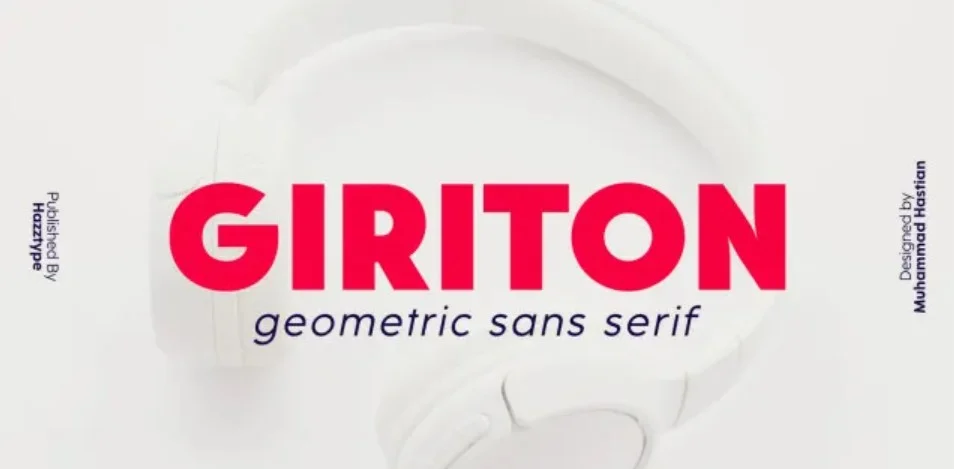
Giriton Font is a modern geometric sans serif typeface designed to bring a sleek and contemporary feel to any project. Its clean lines and balanced shapes give it a refined look that works beautifully in both digital and print designs.
The font’s minimal yet confident style ensures clarity, making it a great choice for projects where both readability and visual appeal are important.
The geometric structure of Giriton offers a timeless quality, making it a reliable option for long-term branding.
Whether you are creating logos, designing editorial layouts, building a stylish website, or working on marketing materials, this font adapts seamlessly to different contexts. Its precise curves and uniform letterforms add a touch of sophistication without feeling overly complex.
Giriton Font Family
Designers often choose Giriton Font for contemporary branding projects because it communicates professionalism and creativity at the same time.